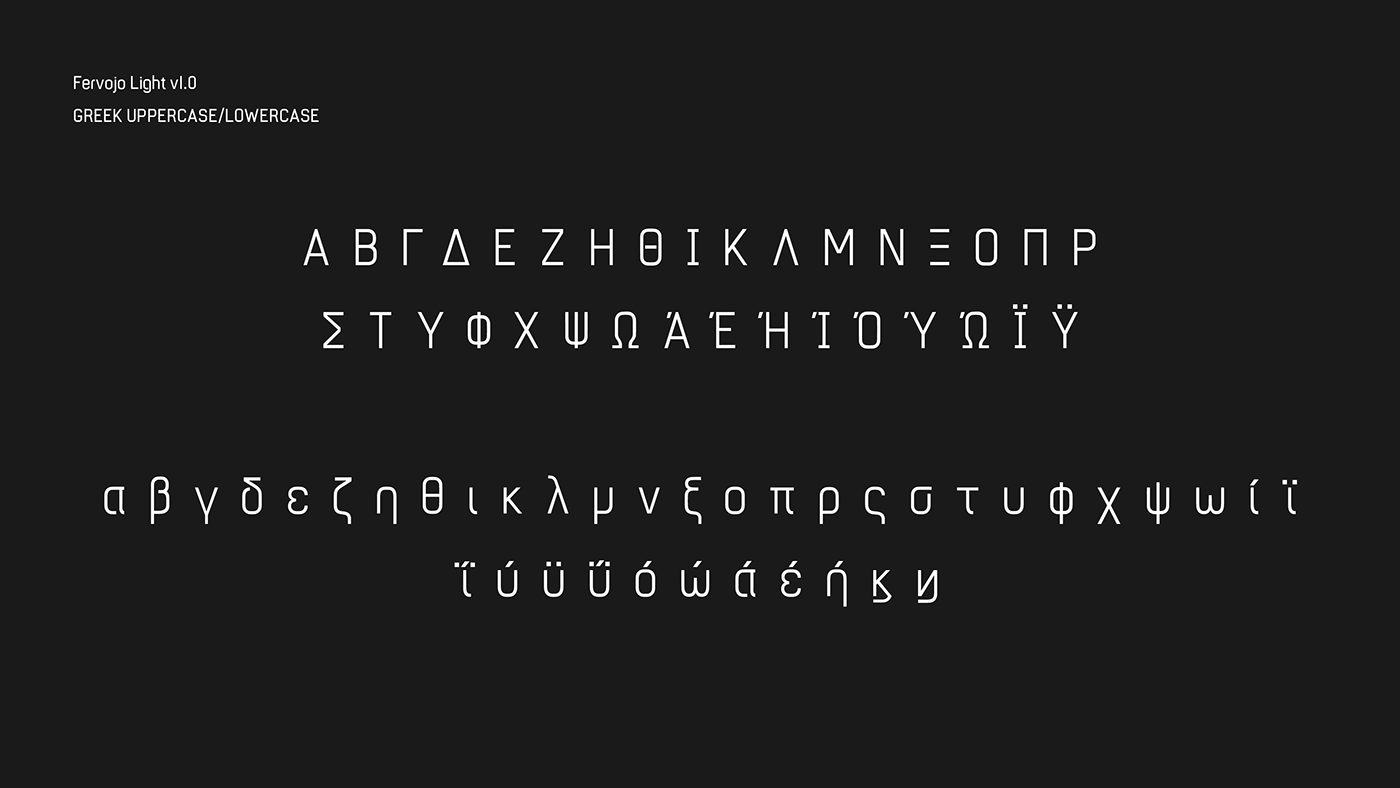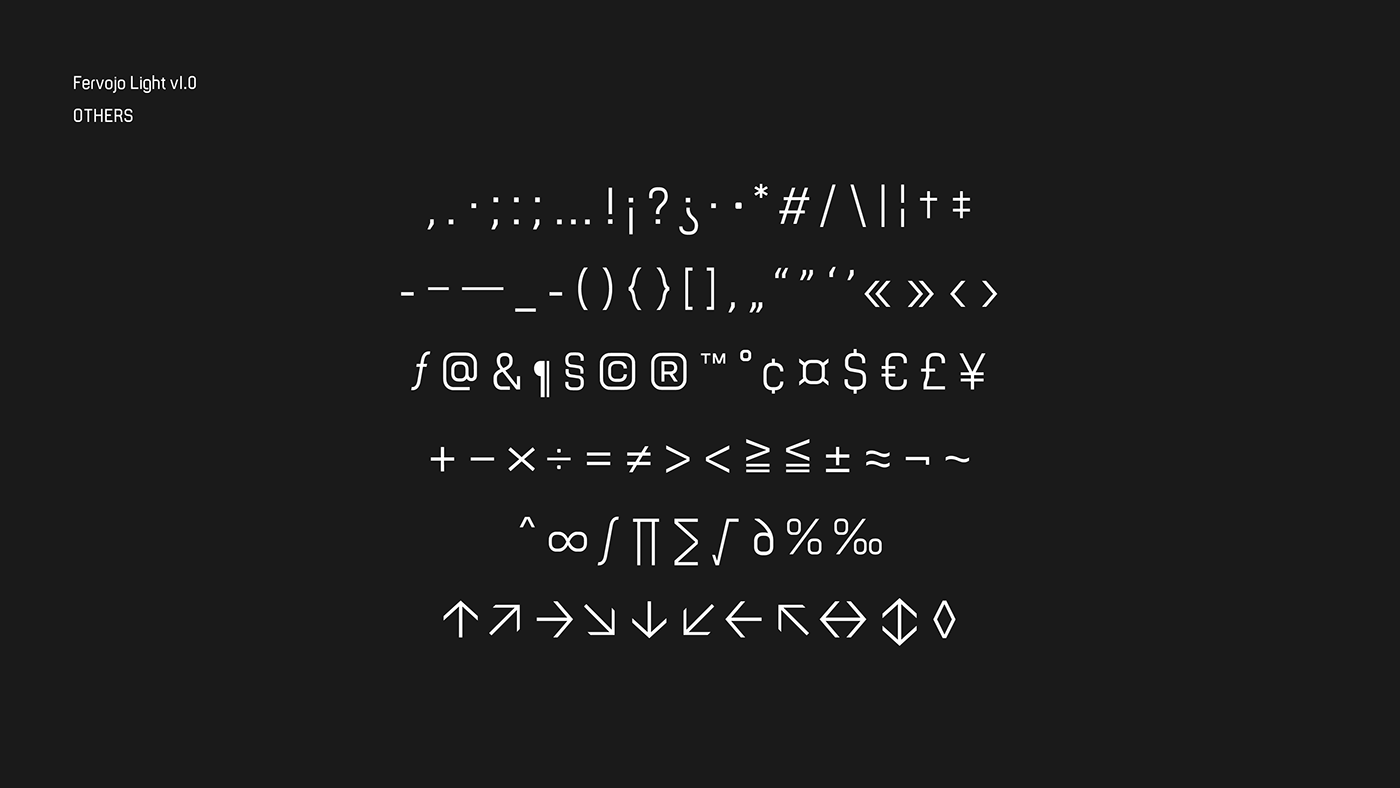
A font family Fervojo is a geometric sans-serif typeface inspired by the numeric typefaces that have been used in the subway system of Tokyo, Japan (the original numeric typeface is also called “Eidan-Numbers” or “Eidan-Typeface”).
While the original version of the typeface design had only numbers, Fervojo expands its character set to support a lot of Latin and Greek alphabets used in Western and Central European languages, Chinese Pinyin, Esperanto, etc.
This font family does not intend to “reproduce” the original design, therefore, differences in details exist from the original letterforms.